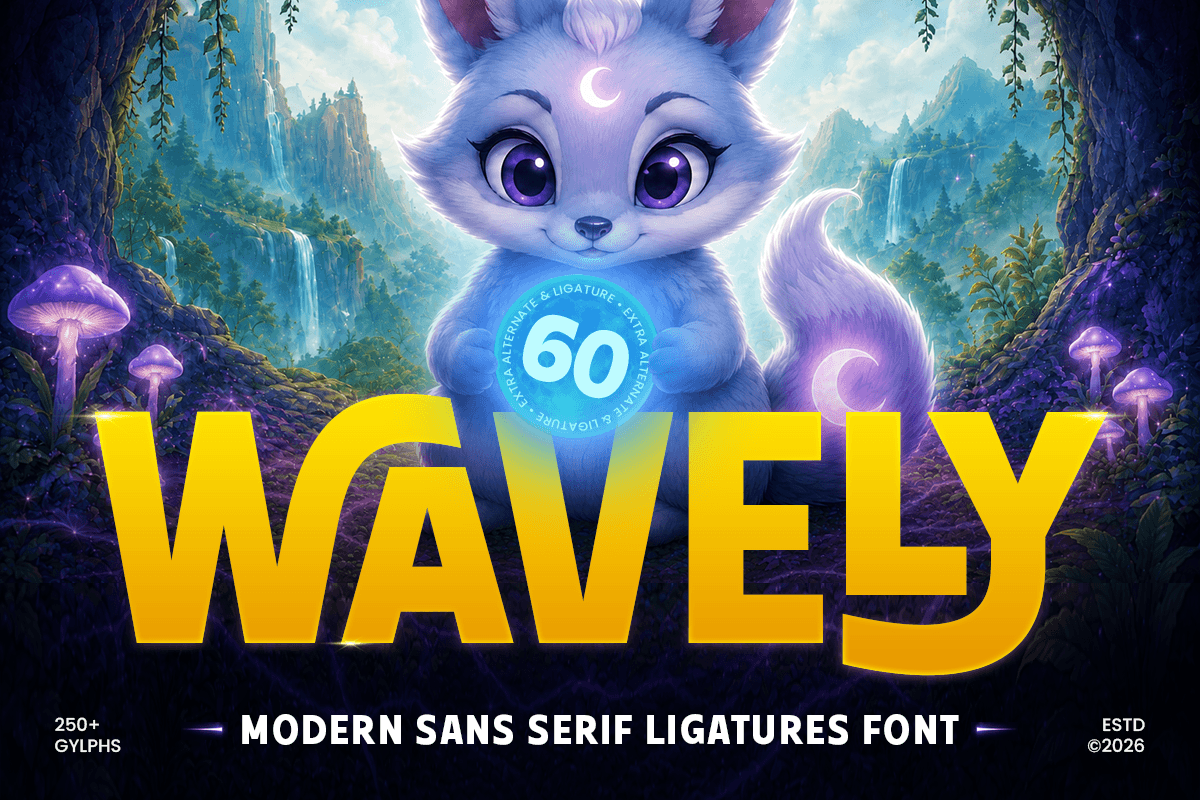
Wavely
-Modern Sans Serif Ligatures FontWavely - Modern Sans Serif Ligatures Font
Featuring smooth letterforms, balanced proportions, and creative ligature combinations, WAVELY brings a fresh and sophisticated look to contemporary design projects.
Perfect for modern branding, logo design, packaging, editorial layouts, posters, social media, and UI/UX projects, WAVELY creates a professional visual identity with a unique personality. Its versatile sans serif style makes it suitable for both minimalist and expressive designs.
With carefully crafted ligatures and refined geometric shapes, WAVELY helps designers create memorable headlines, brand identities, and digital experiences. This font is an excellent choice for creative studios, startups, lifestyle brands, and modern businesses seeking a stylish and distinctive typeface.
WAVELY – Modern Sans Serif Ligatures Font Features
Clean modern sans serif letterforms with stylish proportions
Unique ligature combinations for creative typography
OpenType features for enhanced typographic flexibility